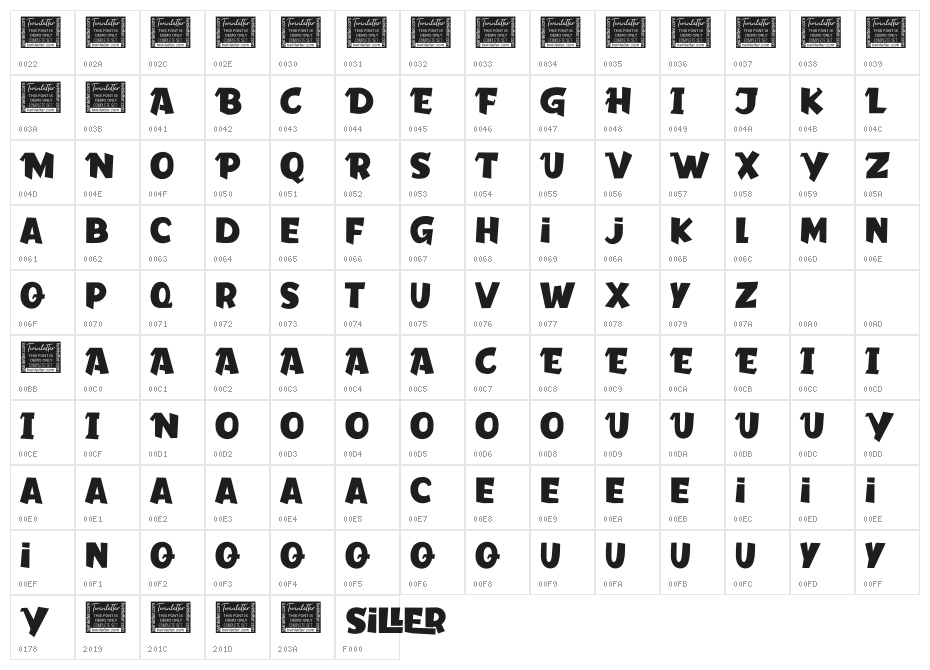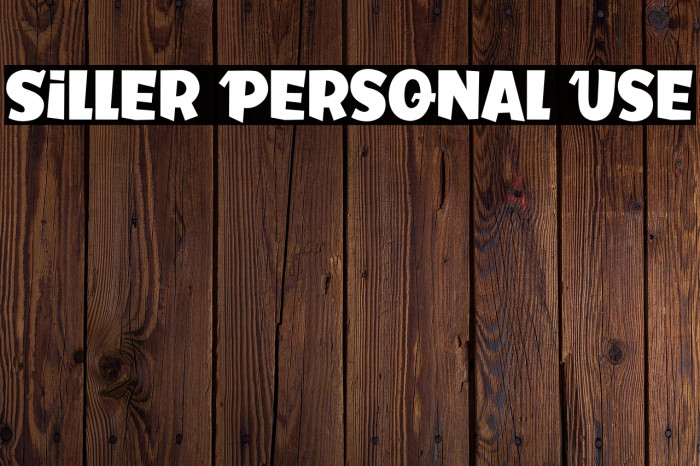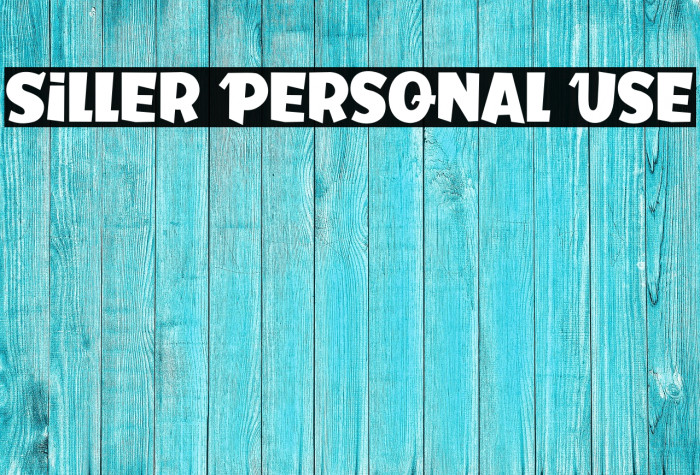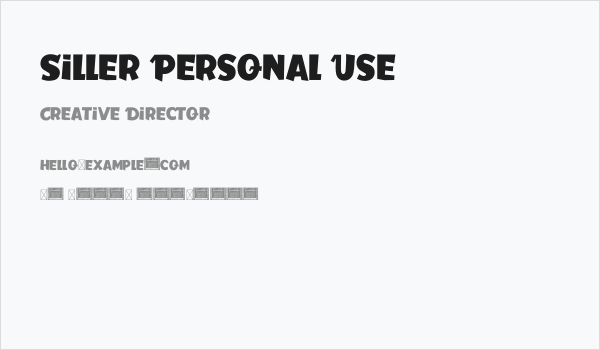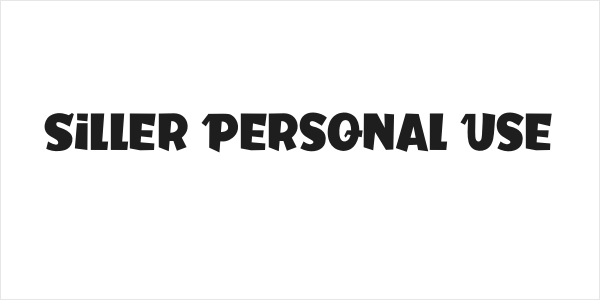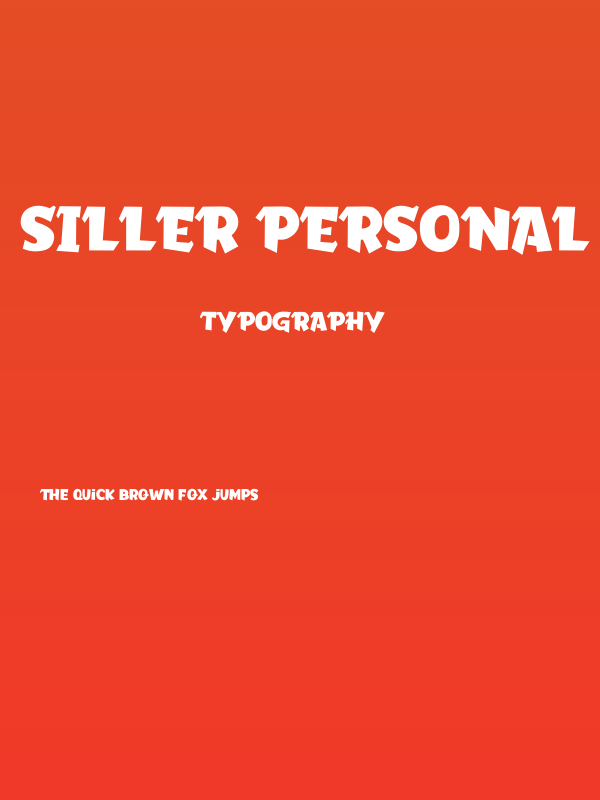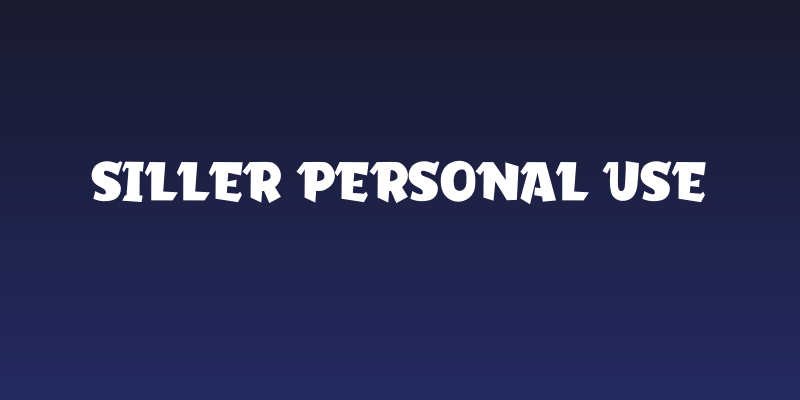
Siller Personal Use Font
Siller Personal Use Description
This font features bold, angular characters with a playful and dynamic style. The uppercase letters have a strong presence with sharp edges and a slightly slanted orientation, giving them a sense of movement. The lowercase letters maintain the same boldness, ensuring consistency across the typeface. The numbers and special characters are designed to match the overall aesthetic, making them suitable for attention-grabbing designs. The font's unique style makes it ideal for projects that require a bold and energetic look.
| Proposed Projects | Ideal for posters, headlines, branding, and any design that needs a bold and energetic touch. |